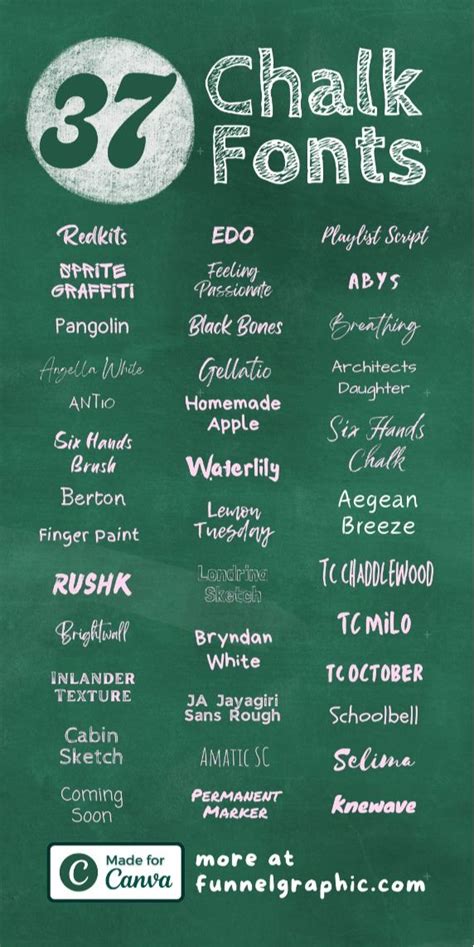
35 Best Examples of Chalk Hand Lettering Fonts 2017
Chalk Writing Font. Chalk is popular with kids, who use it to. Designed to give your content a distinctive.
Designed to give your content a distinctive. Web chalk fonts have letters that look like they were drawn or written with a stick of chalk. Chalk is popular with kids, who use it to.
Chalk is popular with kids, who use it to. Designed to give your content a distinctive. Chalk is popular with kids, who use it to. Web chalk fonts have letters that look like they were drawn or written with a stick of chalk.